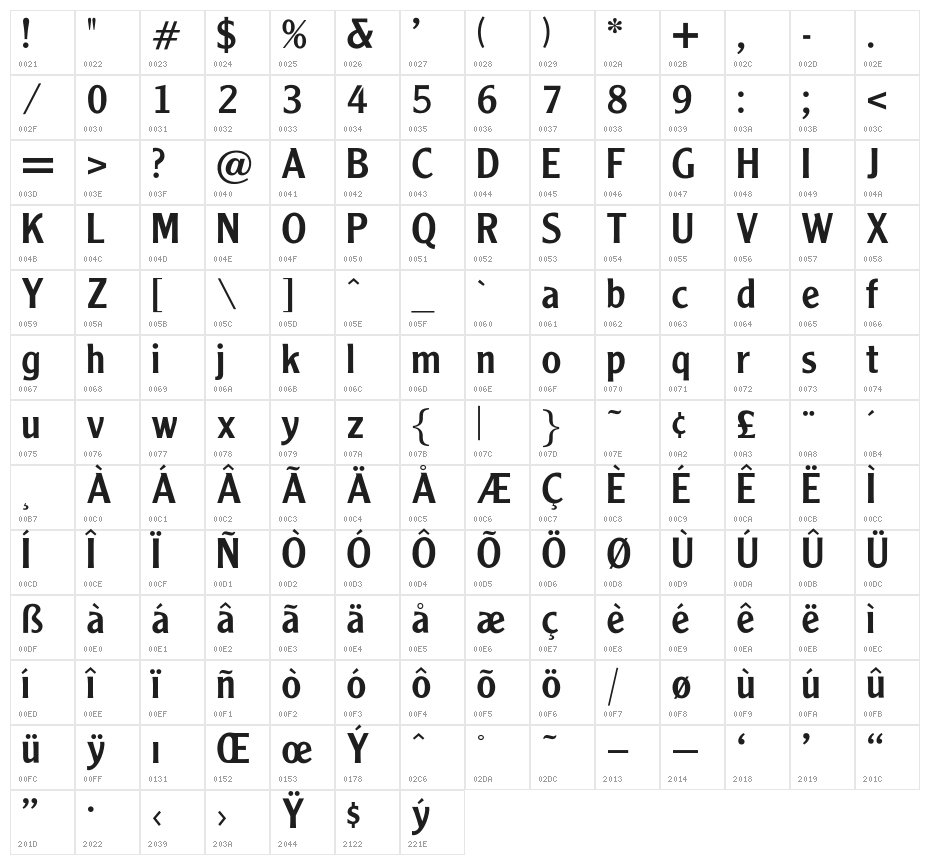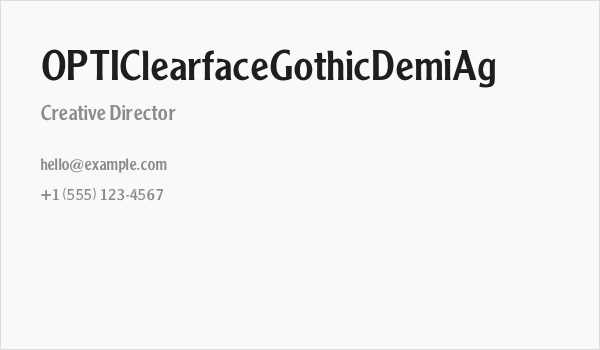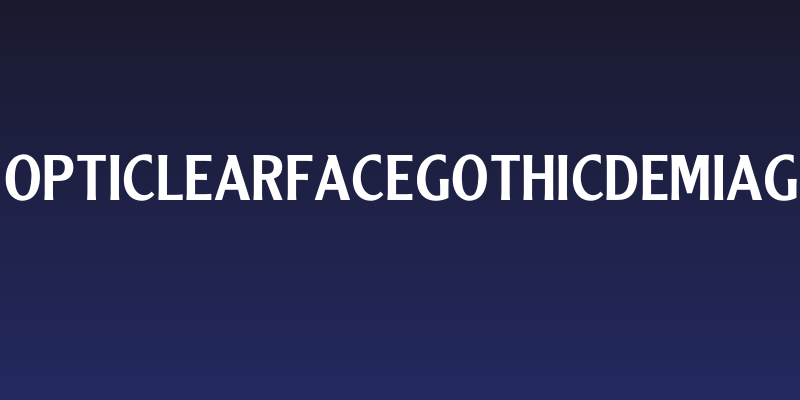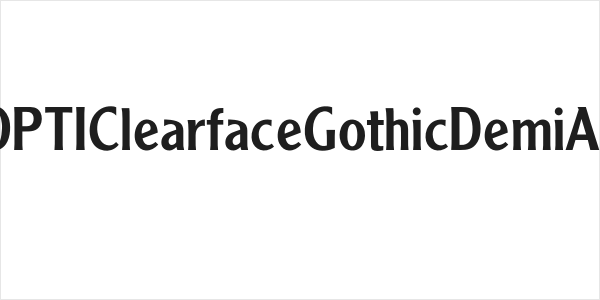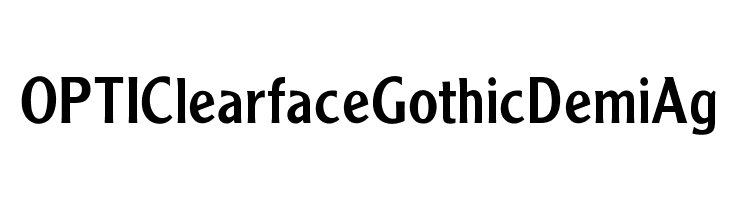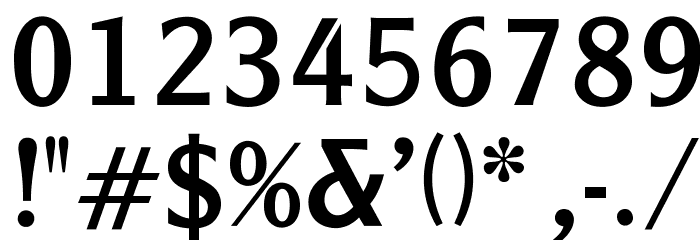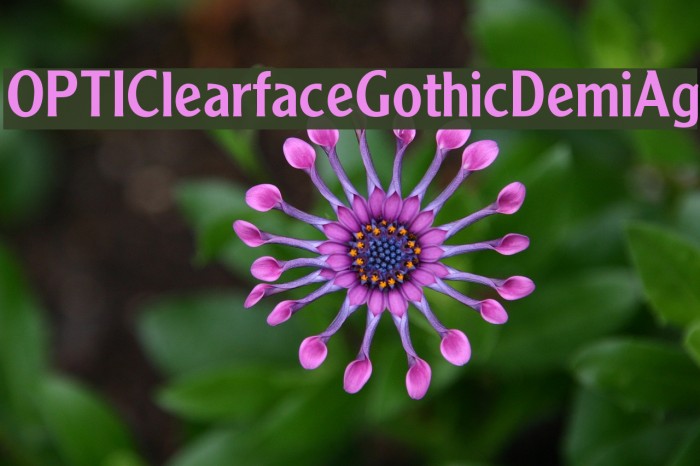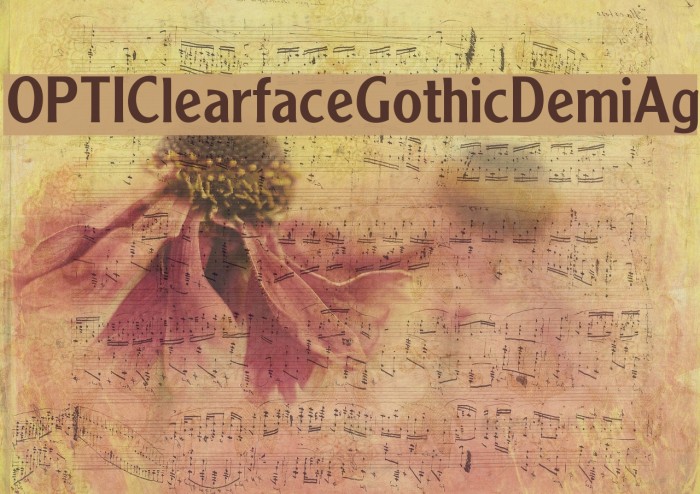
OPTIClearfaceGothicDemiAg Font
OPTIClearfaceGothicDemiAg Description
This font features a clean and modern sans-serif style with a strong presence. The characters are well-defined with a uniform stroke width, providing a balanced and professional appearance. The uppercase letters are bold and commanding, while the lowercase letters maintain a consistent and harmonious flow. The numerals are clear and easily readable, making them suitable for various applications. Special characters are distinct and integrate seamlessly with the overall design. This font is versatile, offering a contemporary look that can enhance both digital and print media.
| Use Case | Headlines, Logos, Body text |
| Proposed Projects | Ideal for branding, advertising, web design, and editorial layouts. |